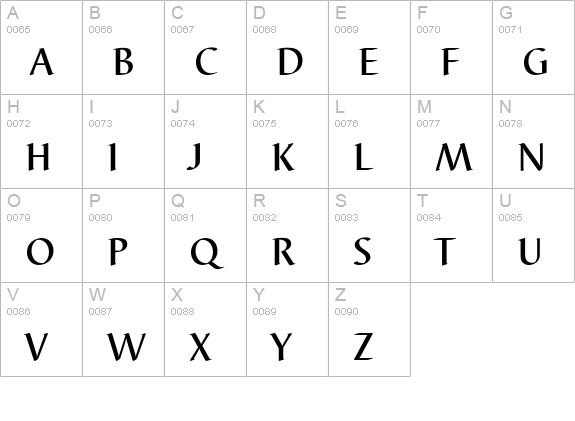
BarbedorEF-Medium is a balanced, medium-weight variant in the BarbedorEF typeface family \xE2\x80\x94 well suited to sub-headlines, navigation, and balanced editorial work.
BarbedorEF-Medium font is a versatile and elegant typeface that exudes sophistication and style. With its clean lines and balanced proportions, this font is perfect for a wide range of design projects, from branding to editorial design. The medium weight of BarbedorEF-Medium strikes the perfect balance between readability and impact, making it a great choice for both body text and headings. And the best part? BarbedorEF-Medium is available for free download at FontsMarket.com. Whether you're a professional designer looking for a reliable font or a hobbyist exploring new typography options, BarbedorEF-Medium is a fantastic addition to your font library. Don't miss out on the opportunity to enhance your designs with this exquisite typeface - download BarbedorEF-Medium today and elevate your creative projects to the next level.